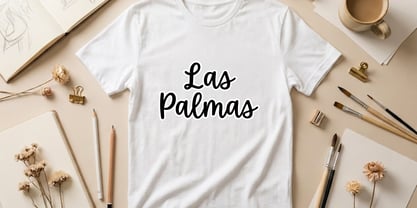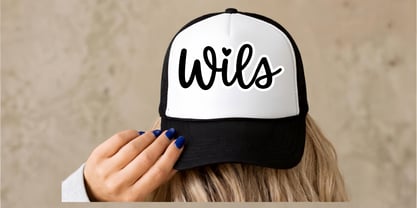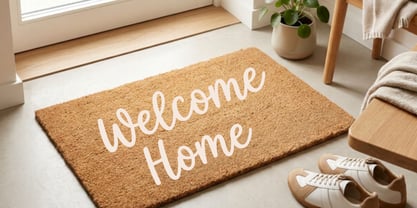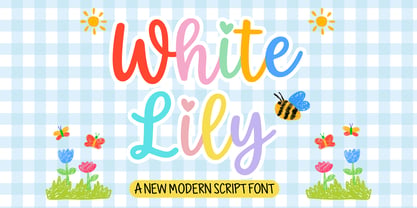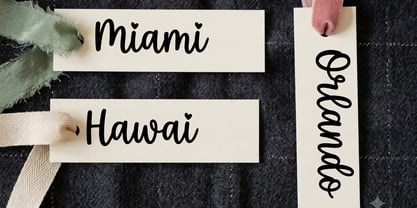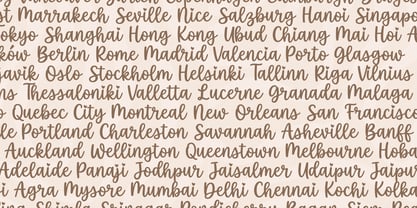
White Lily
White Lily is an elegant and confident script font designed to bring a graceful yet powerful character to every word. With its refined curves, expressive strokes, and beautifully balanced letterforms, White Lily blends feminine sophistication with a bold, distinctive presence.
Perfect for luxury branding, fashion designs, beauty products, wedding stationery, invitations, editorial layouts, packaging, logos, and creative quotes. Its flowing style adds a timeless sense of elegance while maintaining strong readability and visual impact.
White Lily is made for designs that deserve to feel graceful, sophisticated, and unforgettable.